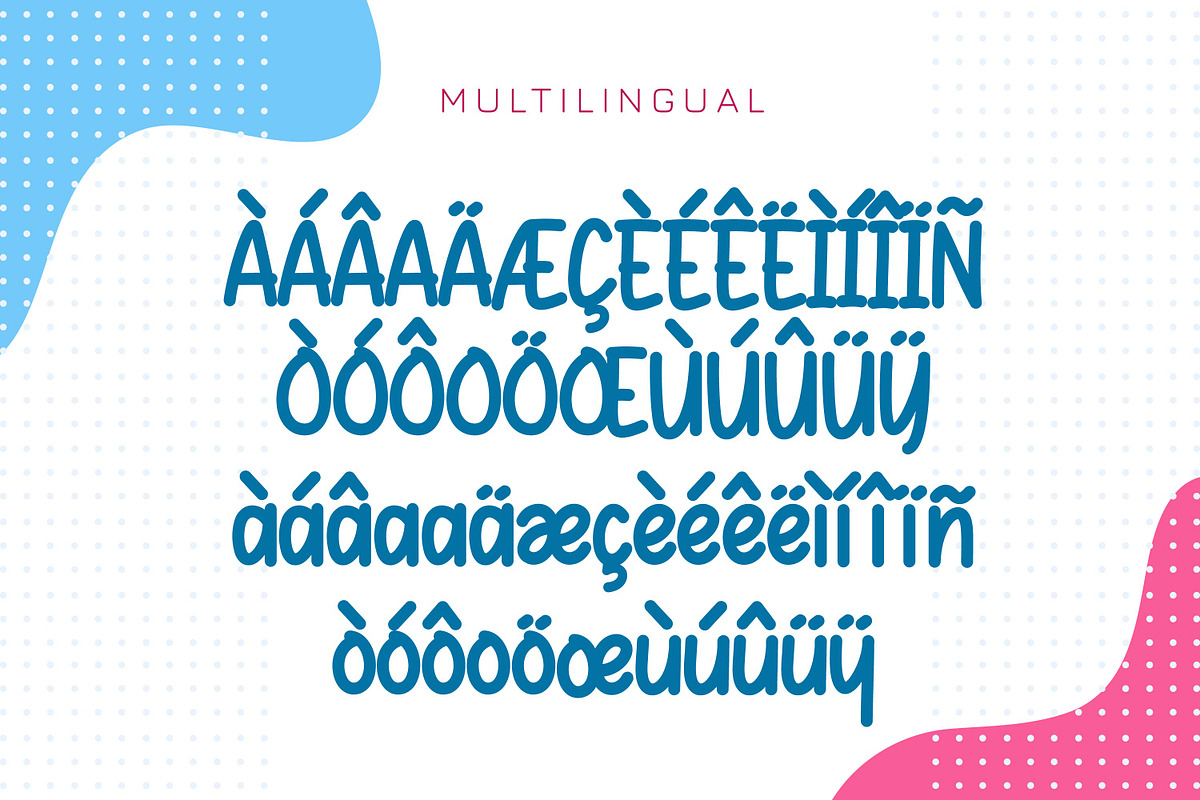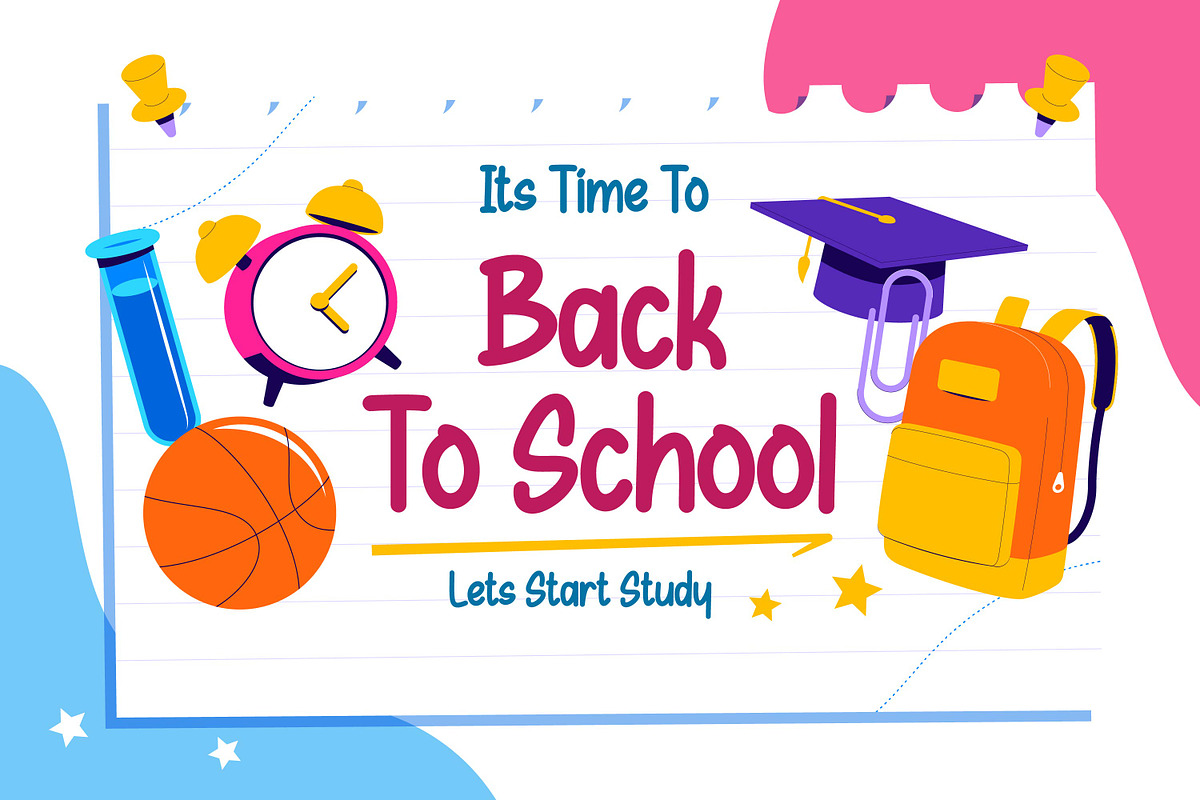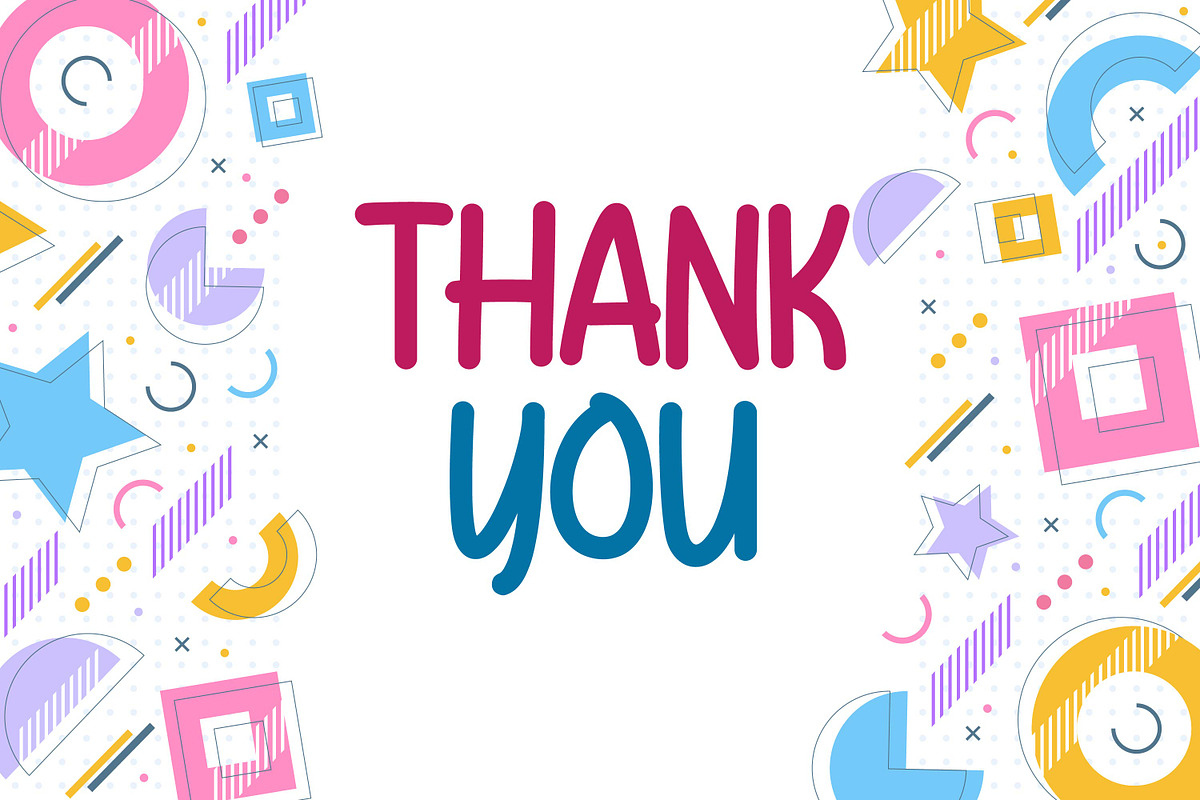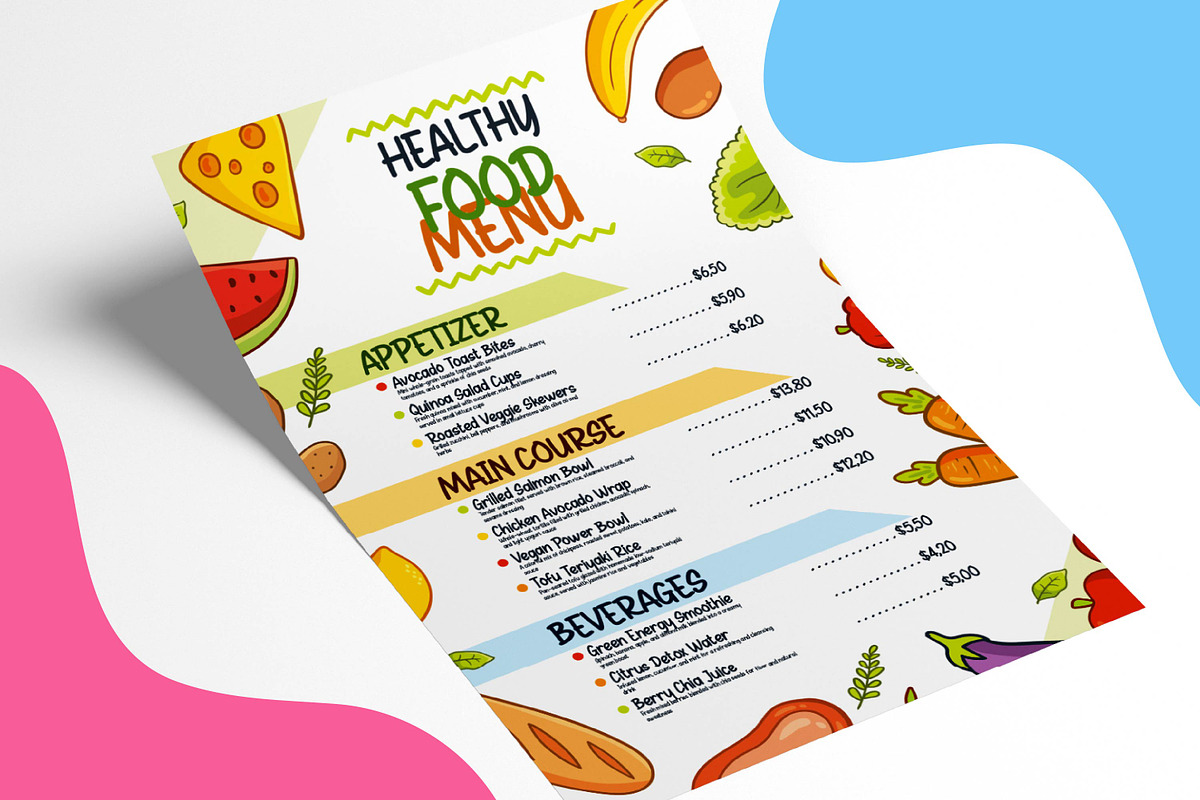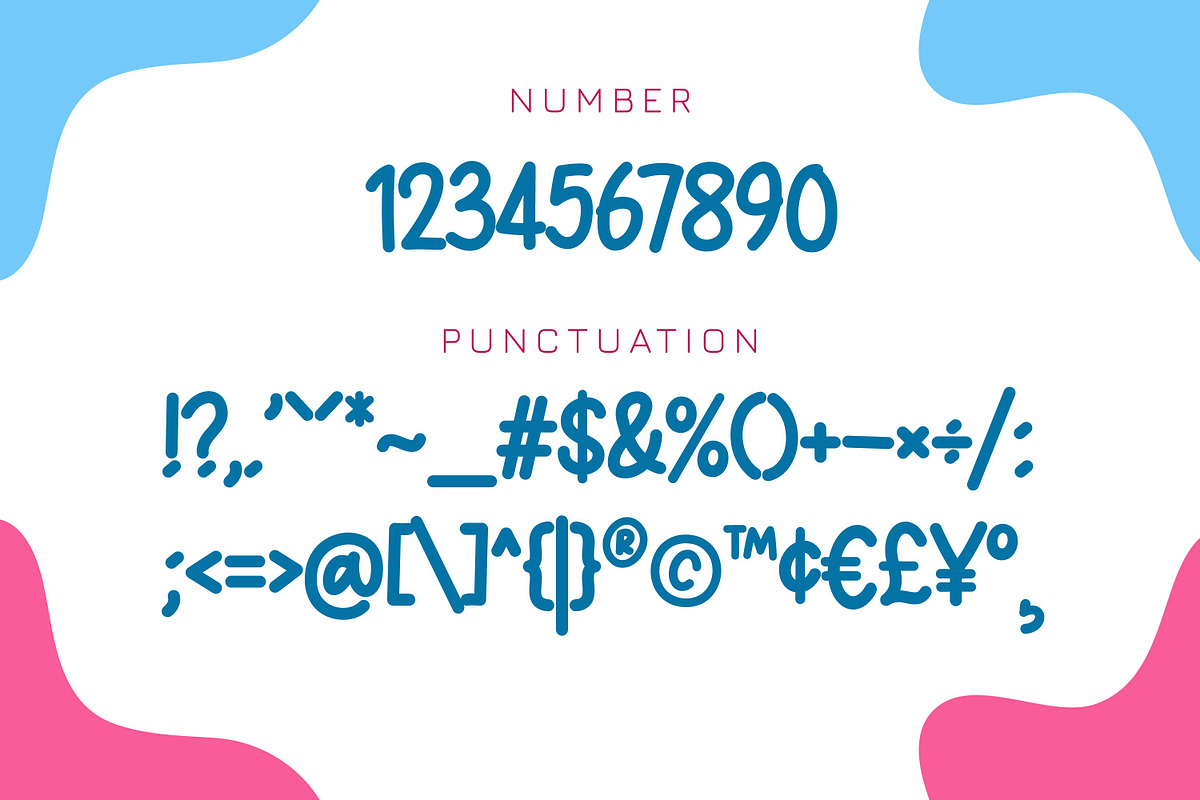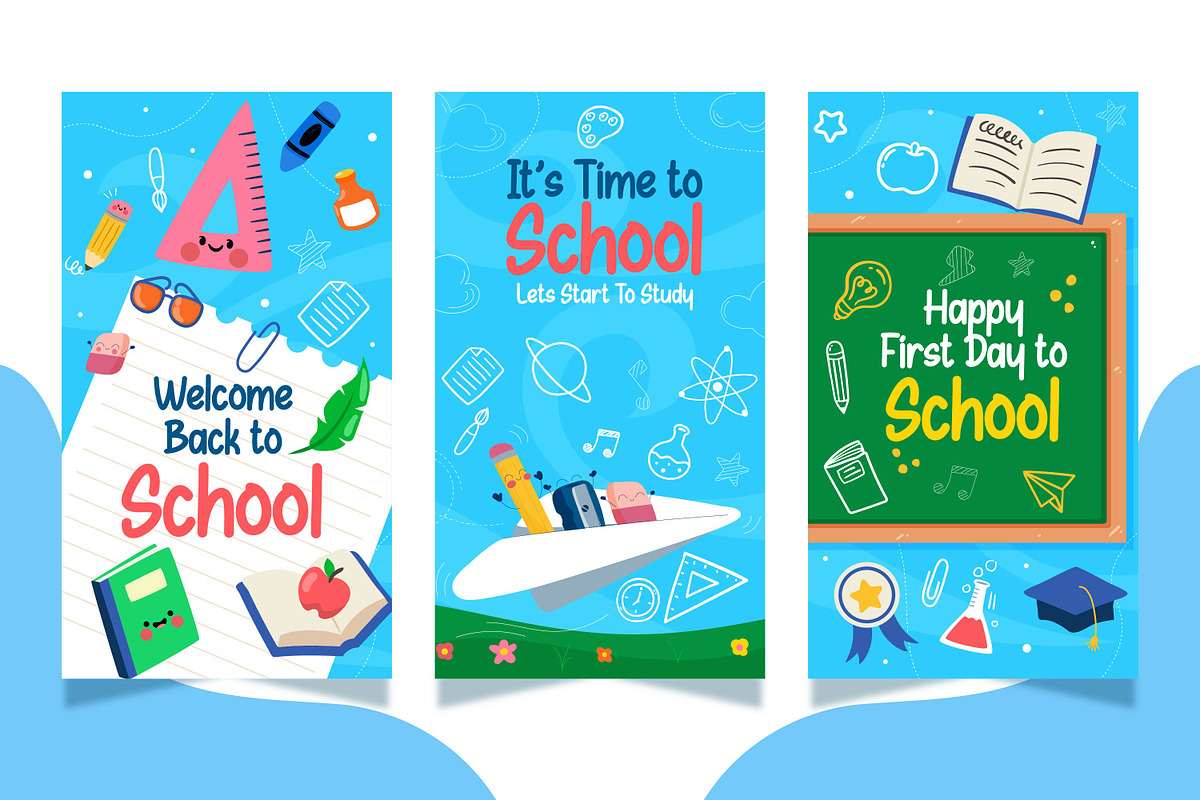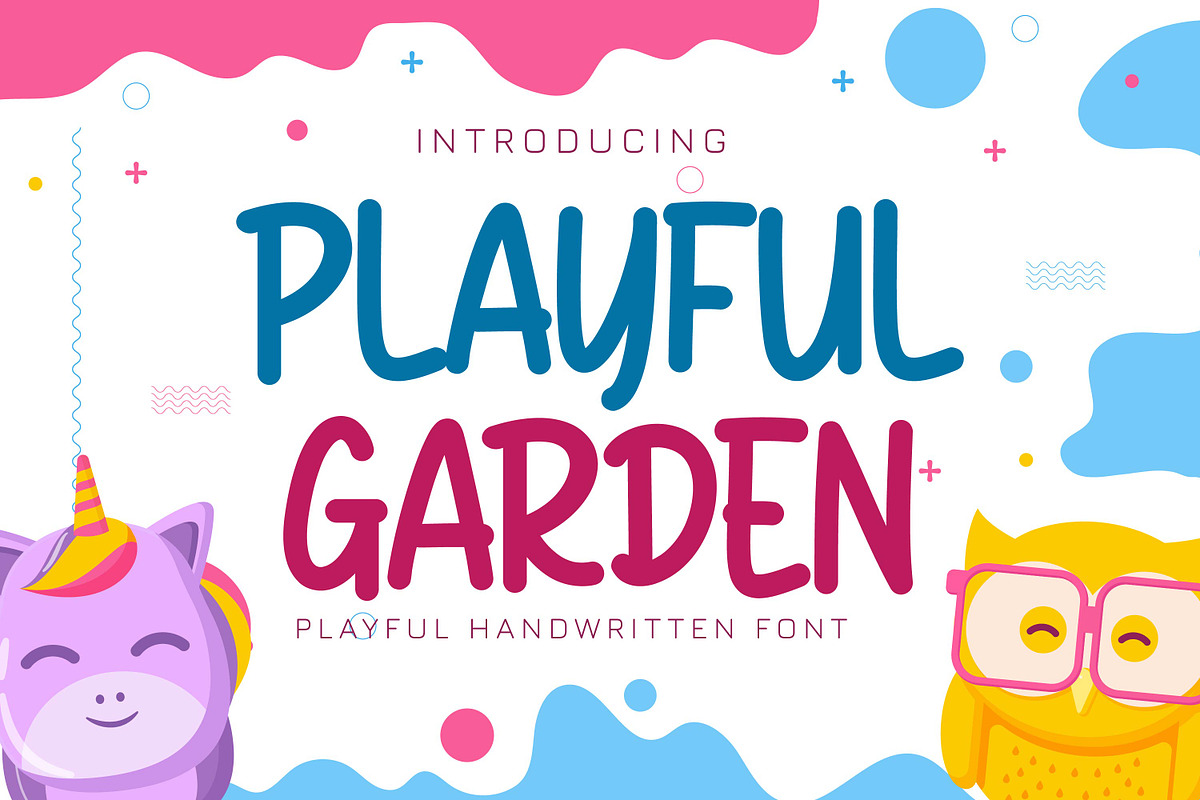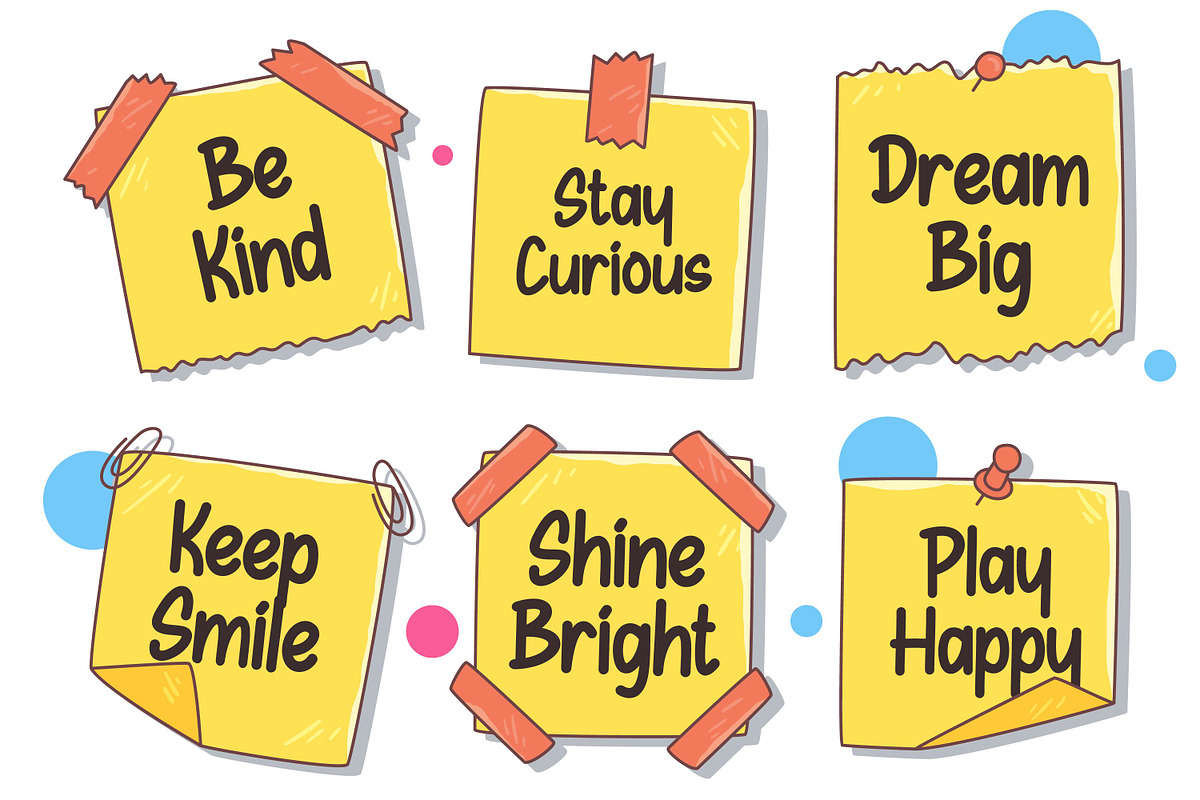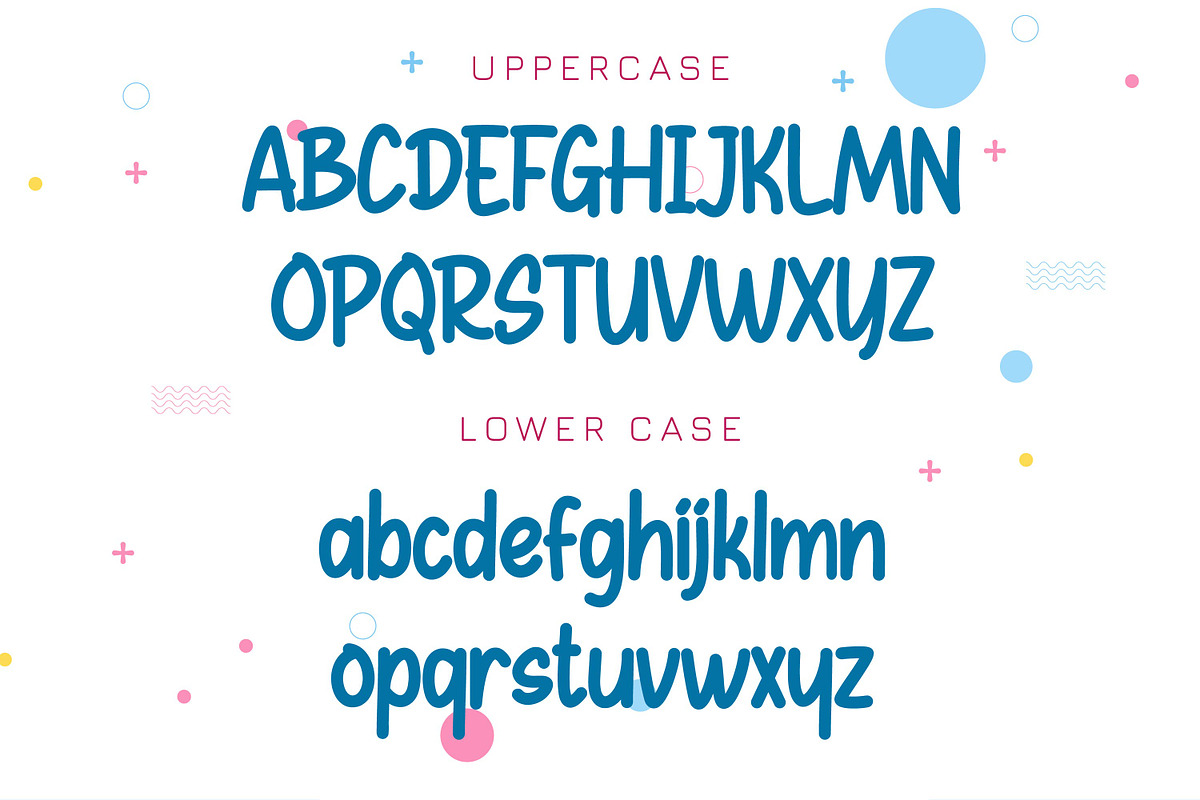
Playful Garden - Fun Handwritten Fon
Playful Garden is a lively handwritten font full of warmth and joy. Its organic strokes and friendly curves make it perfect for greeting cards, quotes, kids’ projects, and creative branding that needs a cheerful and natural vibe.